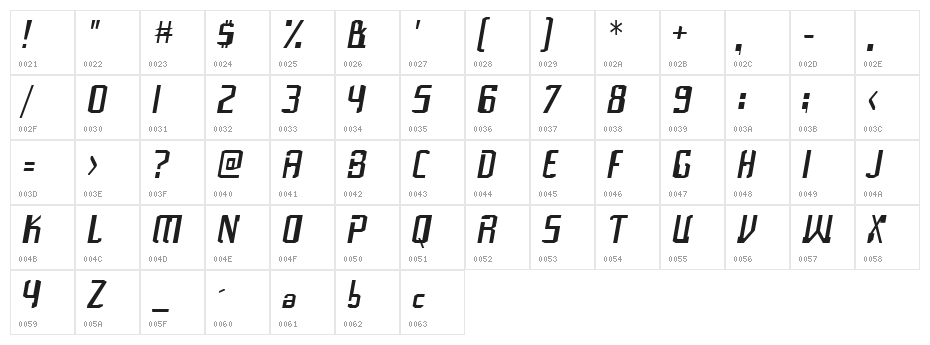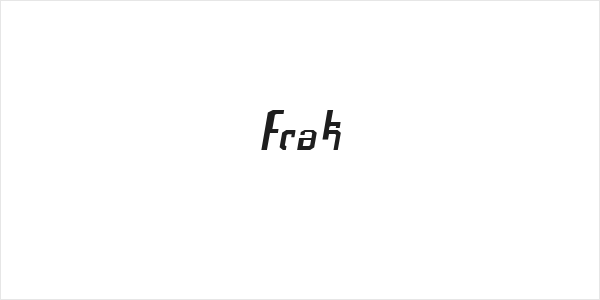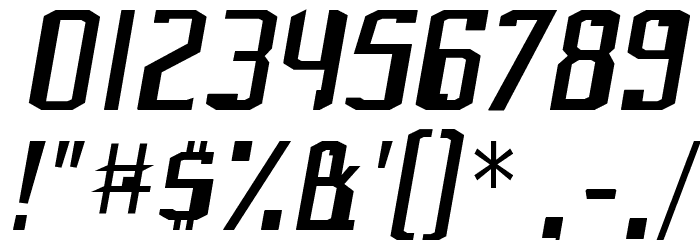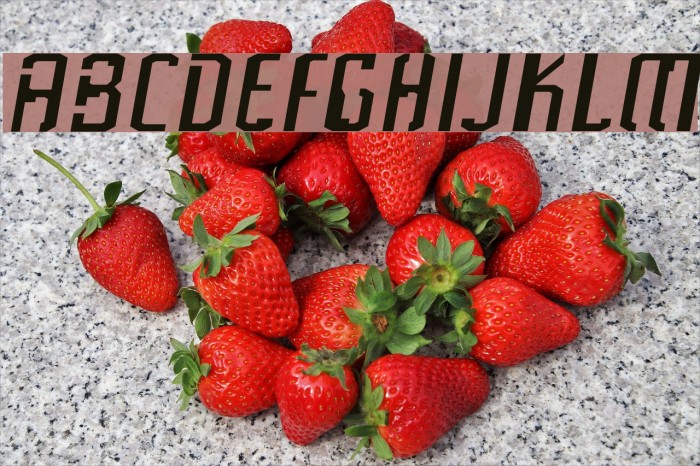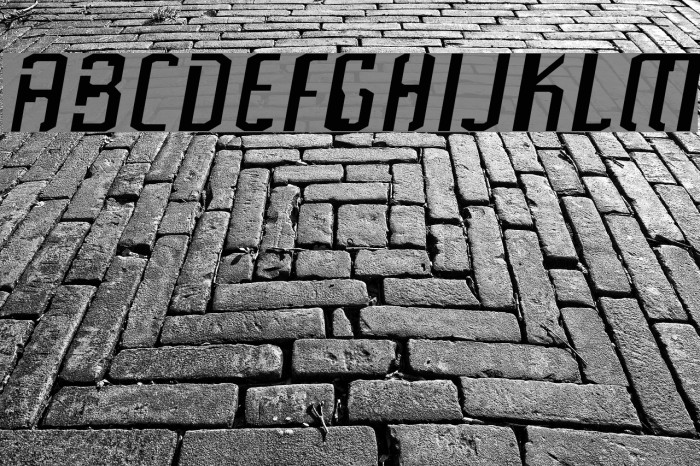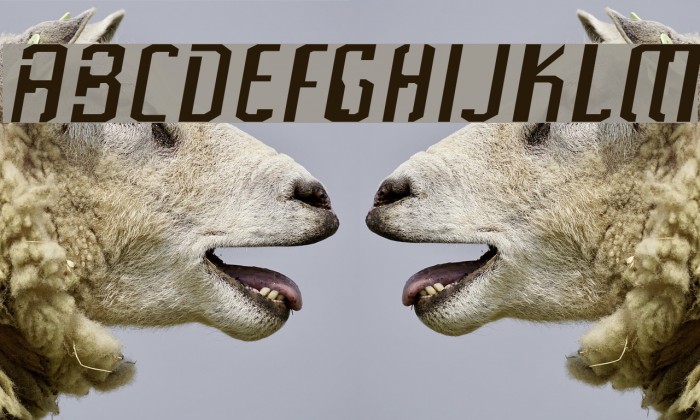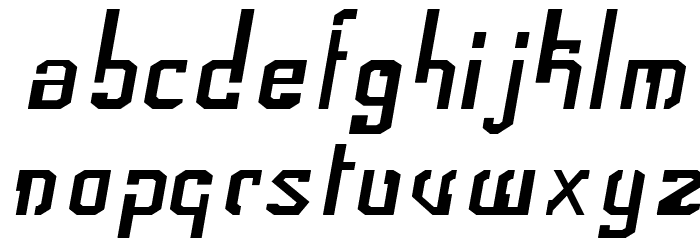
Frak Font
Frak Description
This font features a bold and angular design with a distinct futuristic and industrial feel. The uppercase letters are characterized by sharp edges and geometric shapes, giving them a strong and assertive presence. The lowercase letters maintain the angular theme but with a slightly more fluid and dynamic form, adding versatility to the font. The numerals are consistent with the overall style, offering a cohesive look across all characters. Special characters are designed with the same attention to detail, ensuring they integrate seamlessly with the rest of the font. The overall impression is one of modernity and strength, making it suitable for projects that require a bold and impactful visual statement.
| Proposed Projects | Ideal for technology branding, sci-fi themed projects, video game titles, and modern advertising campaigns. |